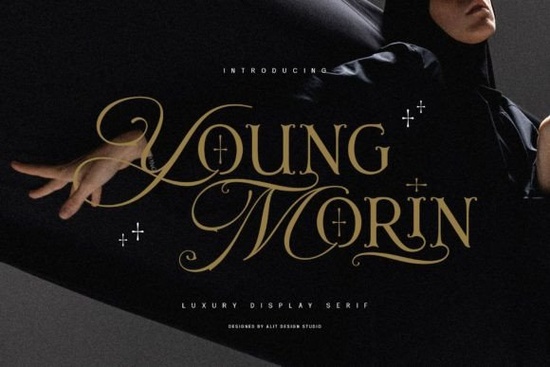
Young Morin Font is a unique typeface that blends the elegance of script with the strength of a classic serif. Designed with a bold and modern twist, this blackletter font stands out for its ability to add character and depth to any design project. Whether you're working on a magazine cover, a social media ad, or a custom print, Young Morin brings a distinctive style that sets your work apart.
If you're looking for a font that combines tradition with contemporary flair, Young Morin could be just what you need. Its design draws inspiration from Roman typography but adds a fresh, daring edge that appeals to creative professionals and hobbyists alike. The font’s versatility makes it suitable for a wide range of applications, from branding to editorial layouts.
What Makes Young Morin Stand Out?
One of the key features of Young Morin is its PUA encoding. This means that users can easily access all the glyphs and swashes without needing special software. For designers who want full control over their typography, this is a major advantage. The font includes a variety of decorative elements that can enhance the visual appeal of your designs.
The font’s mix of script and serif styles creates a striking contrast that works well in both digital and print formats. It’s especially effective when used in headlines or as a focal point in a layout. Its boldness doesn’t overpower; instead, it adds a sense of sophistication and confidence to any project.
Best Uses for Young Morin Font
Young Morin is ideal for projects that require a strong visual identity. Magazine covers often benefit from fonts that command attention, and this one does just that. Brochures and flyers can use it to create a memorable impression, while Instagram ads can leverage its unique style to stand out in a crowded feed.
For those using Canva or other design platforms, Young Morin offers an easy way to elevate your templates. It’s also a great choice for print-on-demand sellers looking to offer custom designs with a distinctive look. The font’s adaptability ensures it fits into various creative workflows without compromising quality.
- Magazine covers
- Brochures and flyers
- Instagram ads
- Canva designs
- Print-on-demand projects
Who Should Use Young Morin Font?
This font is perfect for designers who want to express individuality in their work. It’s particularly appealing to young creatives who are looking to break away from mainstream design trends. Whether you're a small business owner, a craftsperson, or a hobbyist, Young Morin provides a way to add personality to your designs.
Its bold yet elegant style also makes it a good fit for brands that want to communicate strength and uniqueness. The font’s versatility allows it to work in both high-contrast and minimalist designs, giving you flexibility in how you apply it.
How to Get the Most Out of Young Morin
To make the most of Young Morin, consider experimenting with different sizes and weights. Using it as a headline can draw attention, while pairing it with a simpler font for body text can balance the overall design. Testing it in various contexts will help you understand its strengths and limitations.
It’s also helpful to look at examples of how other designers have used the font. This can give you ideas for your own projects and help you avoid common pitfalls. Remember, the goal is to enhance your design, not overwhelm it.
When working with Young Morin, keep the design clean and focused. Let the font shine without competing with other elements. This approach ensures that your message is clear and visually engaging.
Whether you're a seasoned designer or just starting out, Young Morin Font offers a powerful tool for creating standout work. Its unique blend of traditional and modern elements makes it a valuable addition to any design toolkit.
Before finalizing your project, take a moment to review how the font looks in different formats. Print samples can reveal details that might not be obvious on screen. This step helps ensure that your final output meets your expectations.
As you continue to explore your creative projects, remember that the right font can make a big difference. Young Morin is a great example of how thoughtful design choices can elevate your work and set it apart from the rest.
Quick Checklist:
- Test Young Morin in different design contexts
- Pair it with complementary fonts for balance
- Check how it looks in both digital and print formats
- Use it as a focal point to add visual interest